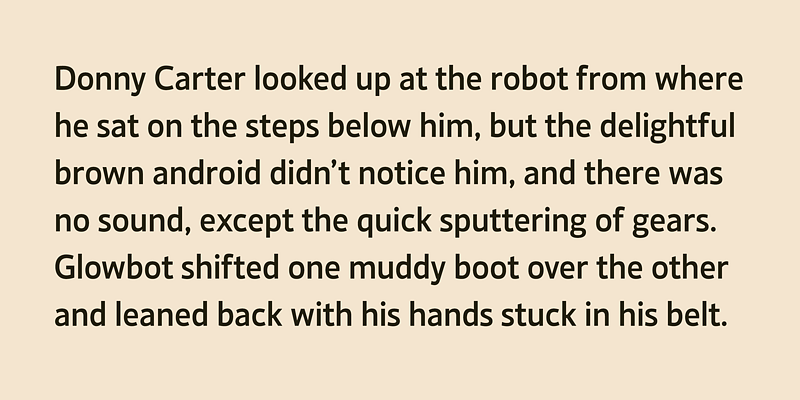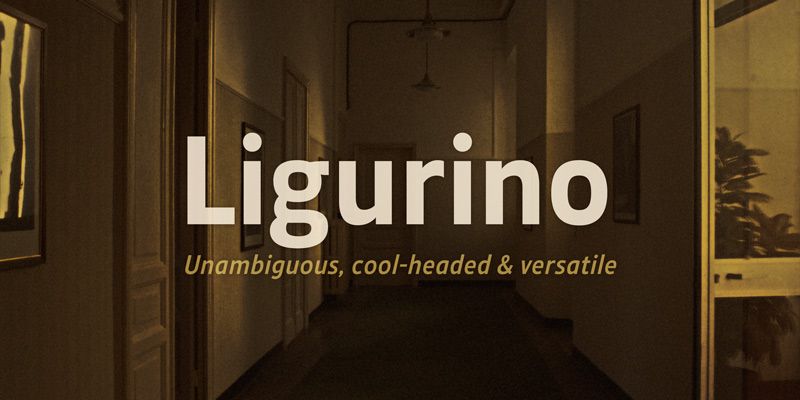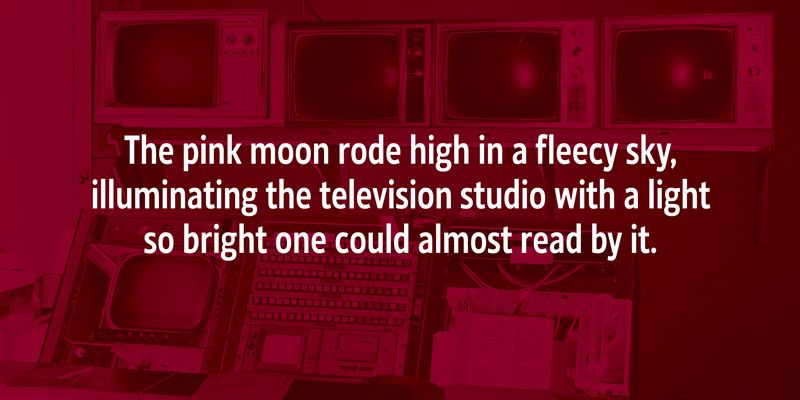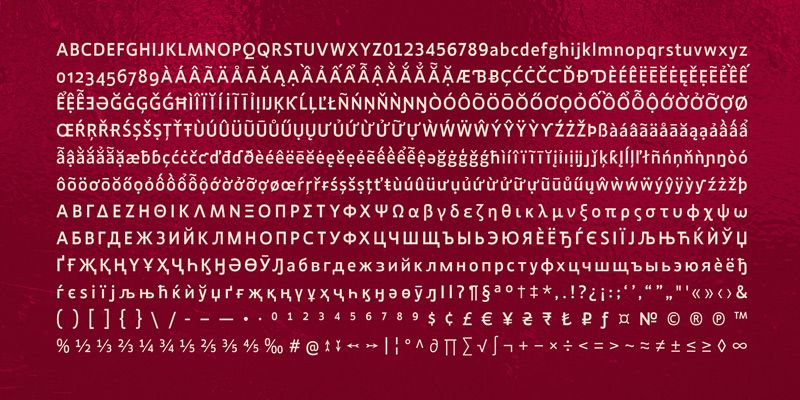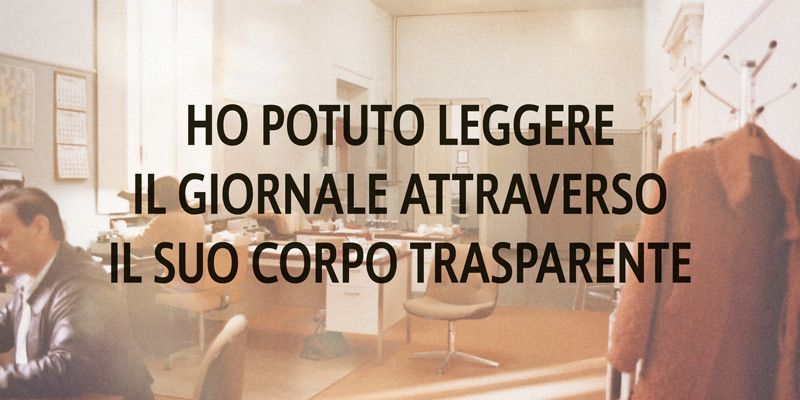
Ligurino is a quiet, open sans serif built for information that should be easy to approach. Its uncluttered forms and gentle proportions make room for headings, short passages, labels, and public-facing instructions without imposing a strong period or technology theme. Regular, Italic, Bold, and Condensed give a small but useful range: bold can establish a route or section; italic can mark a quotation or note; condensed can fit a narrow heading. An alternate, more austere Q offers a subtle adjustment when a wordmark or prominent title calls for it. The face works especially well when clarity itself is the identity.